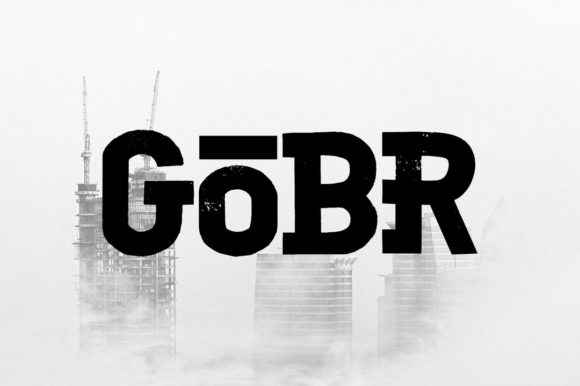
Introducing Gobr Font, a slab serif font that embodies boldness and solemnity. This font is a testament to the fusion of strength and flexibility, with a body that exudes power and sections that possess a surprising degree of fluidity. The unsymmetrical arch of its lines adds a touch of intrigue, creating a font that is both visually captivating and impactful.
Step into the world of street fashion with Gobr Font, the ultimate choice for capturing the essence of urban culture. Its edgy and rebellious nature makes it an ideal companion for clothing brands aiming to convey a sense of authenticity and individuality. Picture your designs adorned with the bold strokes of Gobr, resonating with the raw energy of skateboards, the vibrant colors of murals, and the rhythmic flow of hip hop and rap music.
Unleash your creativity and transform ordinary letters into extraordinary works of art with Gobr Font. Its unique characteristics make it the perfect choice for carving letters that leave a lasting impression. Create signage that commands attention, logos that exude confidence, and packaging that demands to be noticed. The possibilities are endless with Gobr Font; let your imagination soar and watch your designs take on a new life.